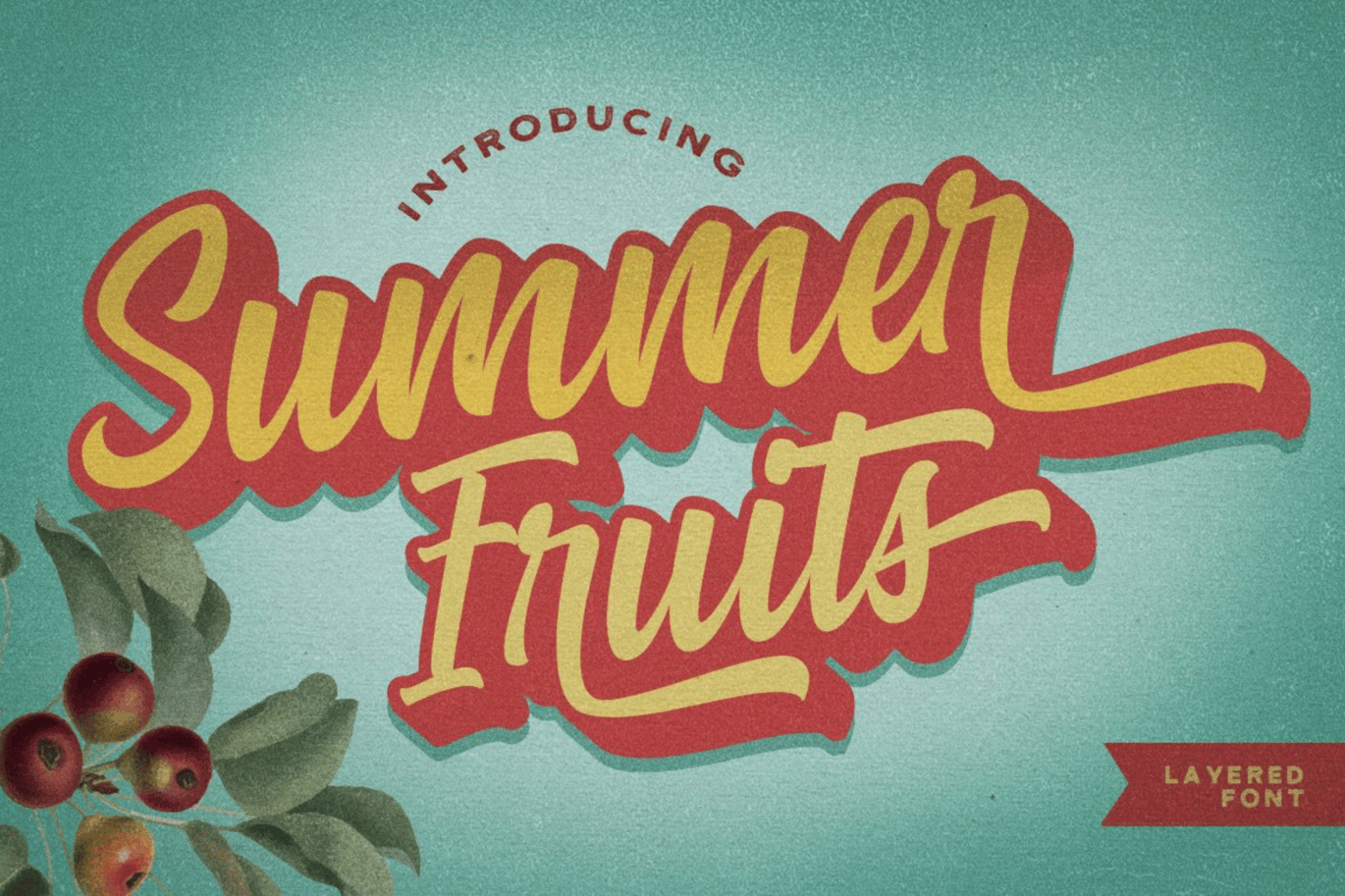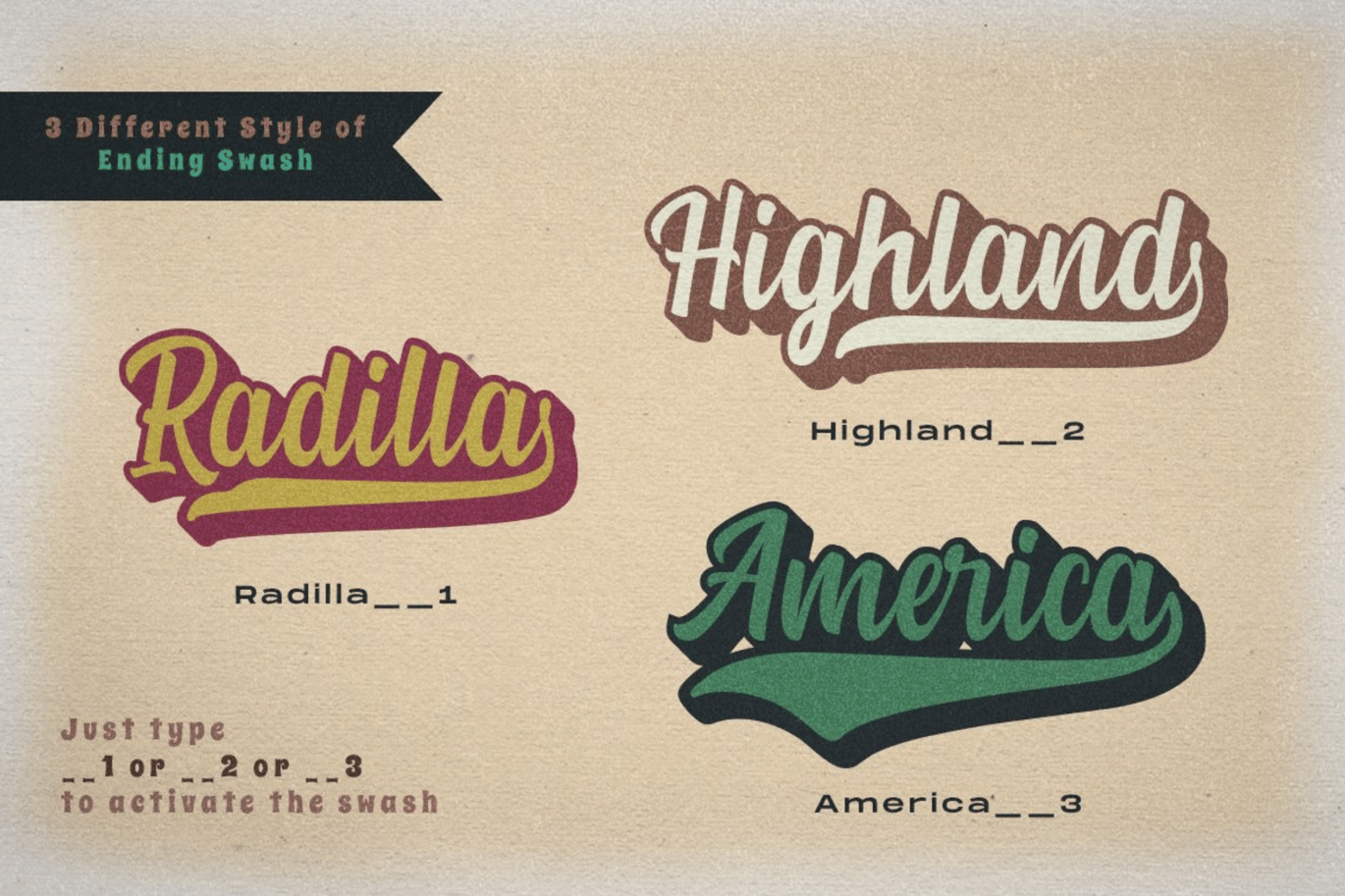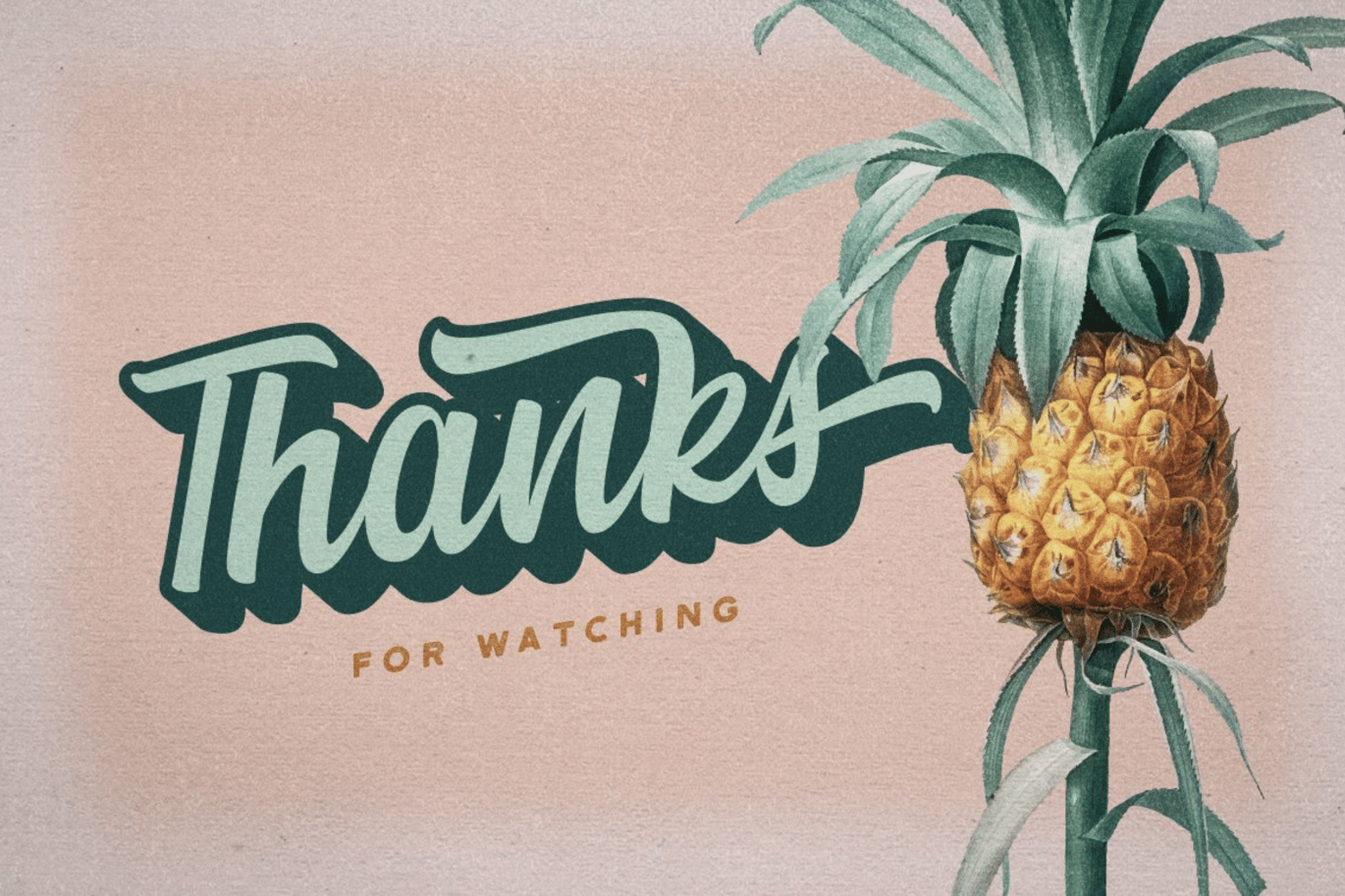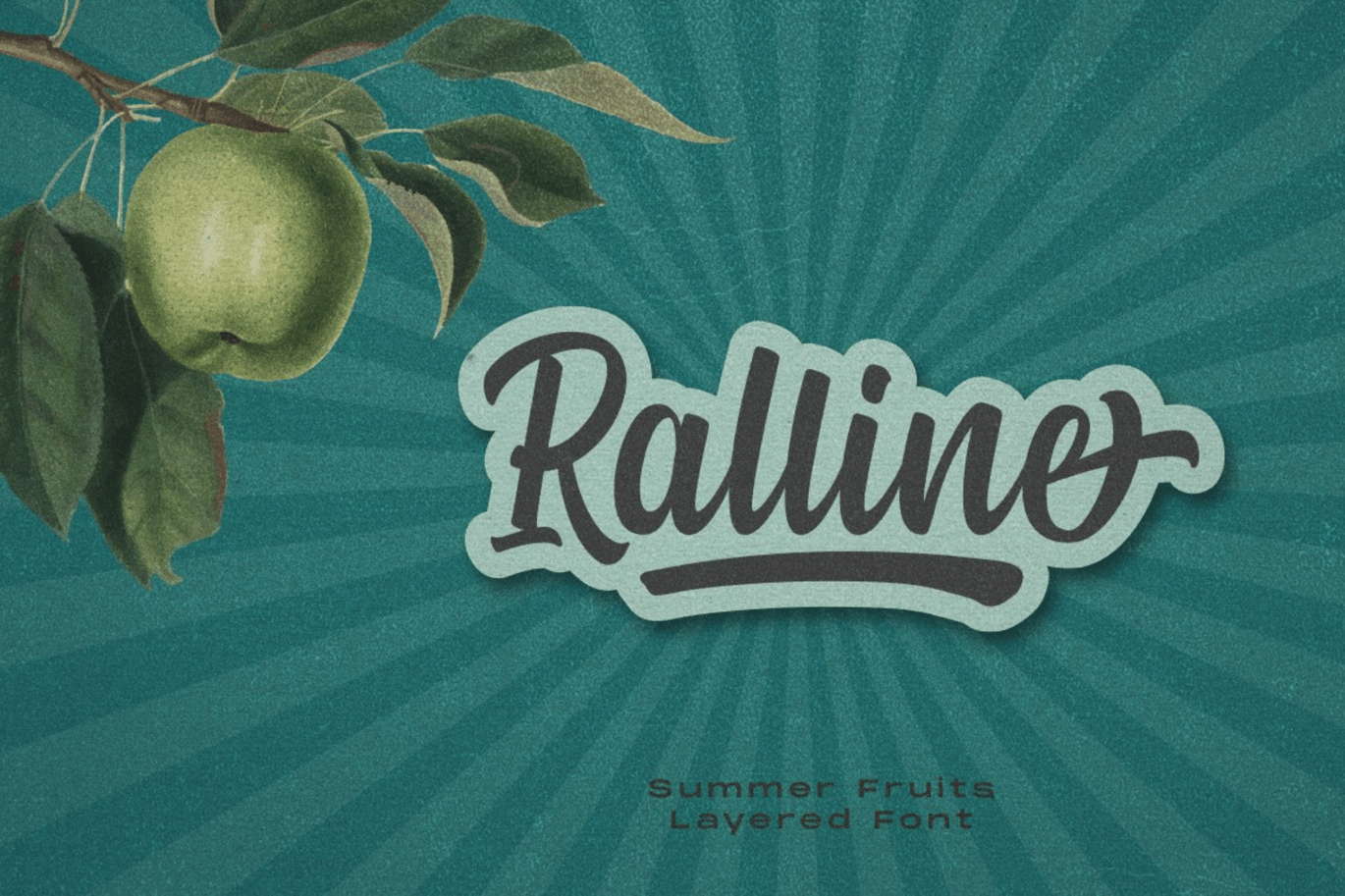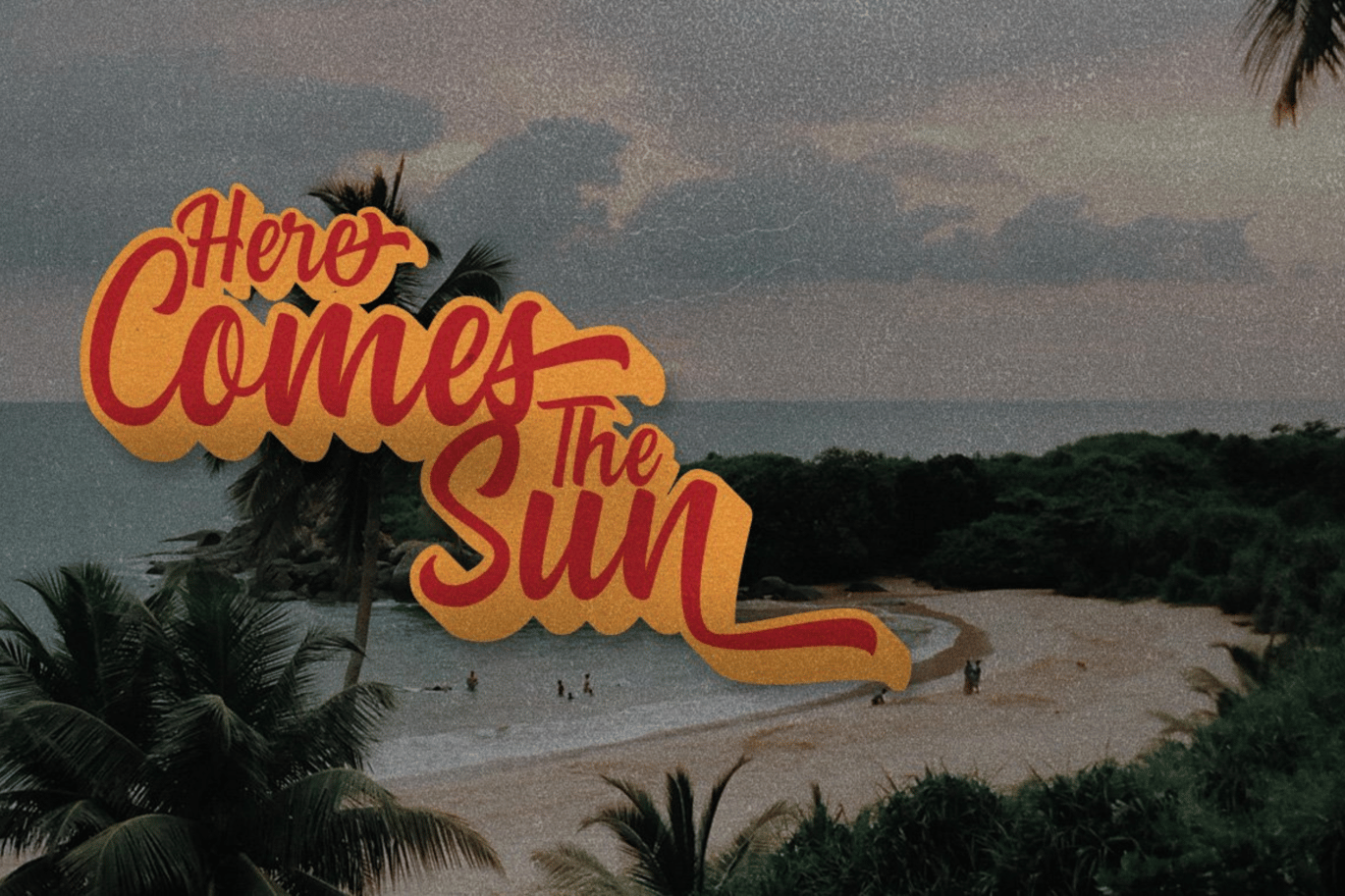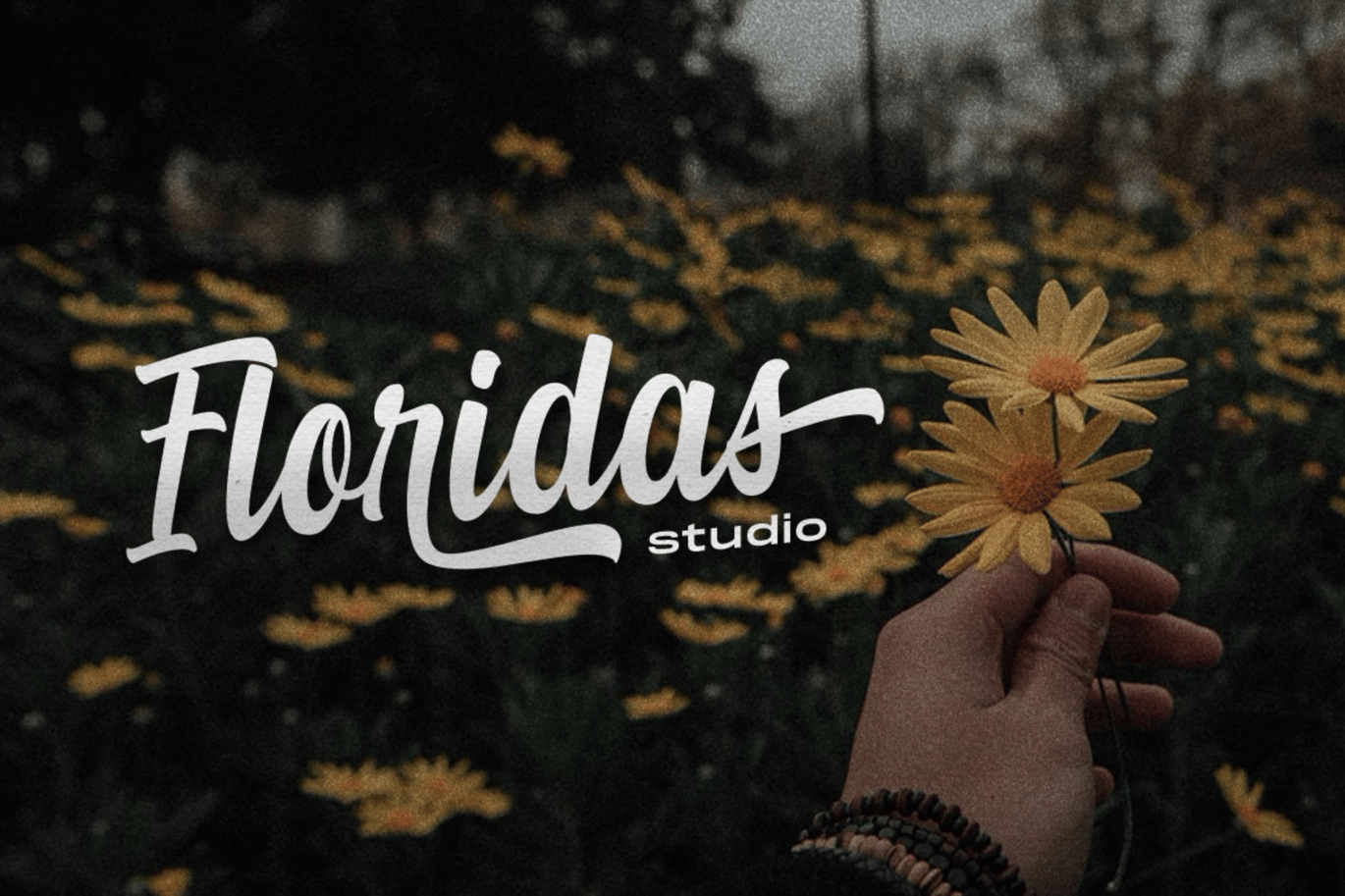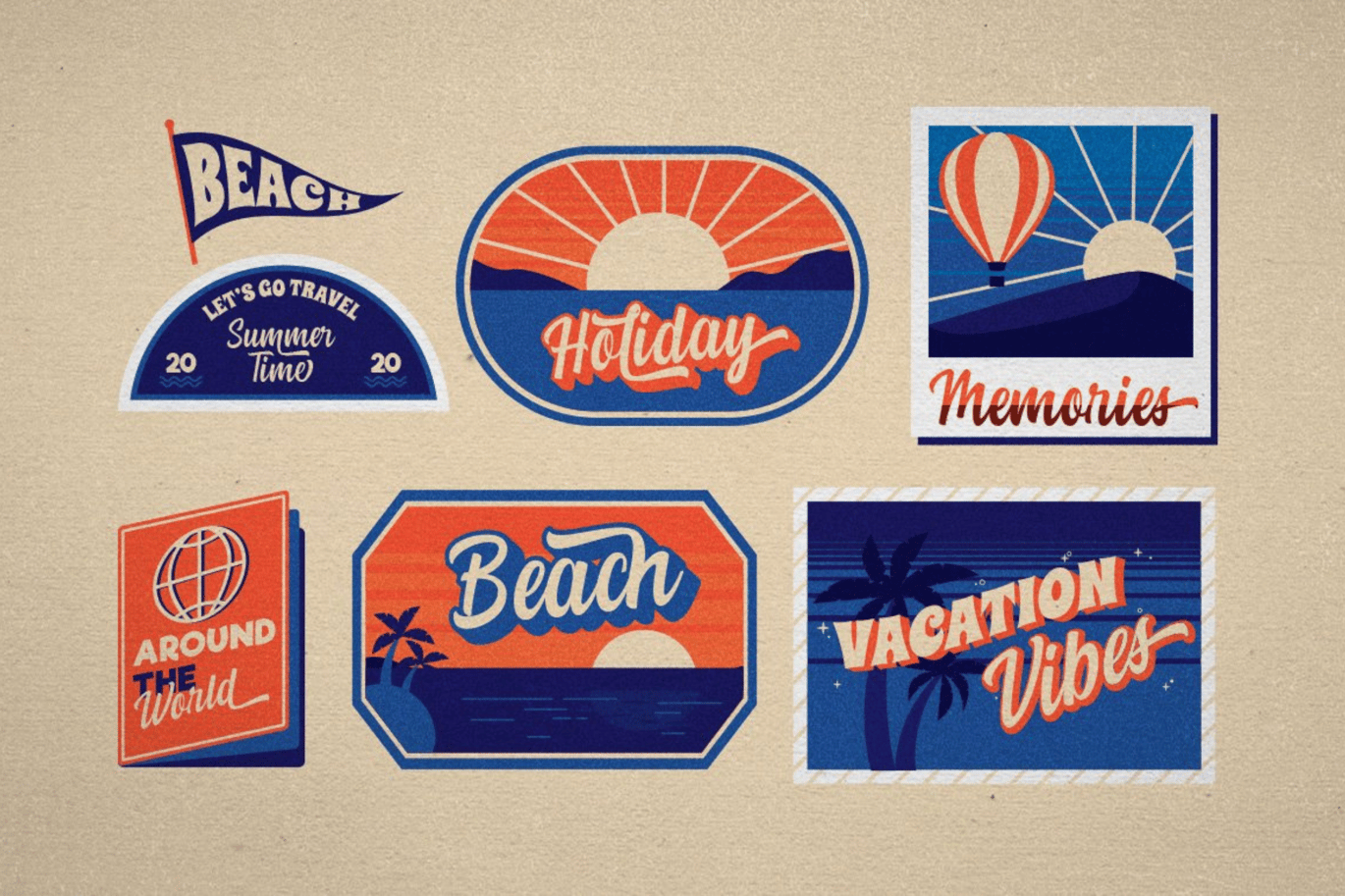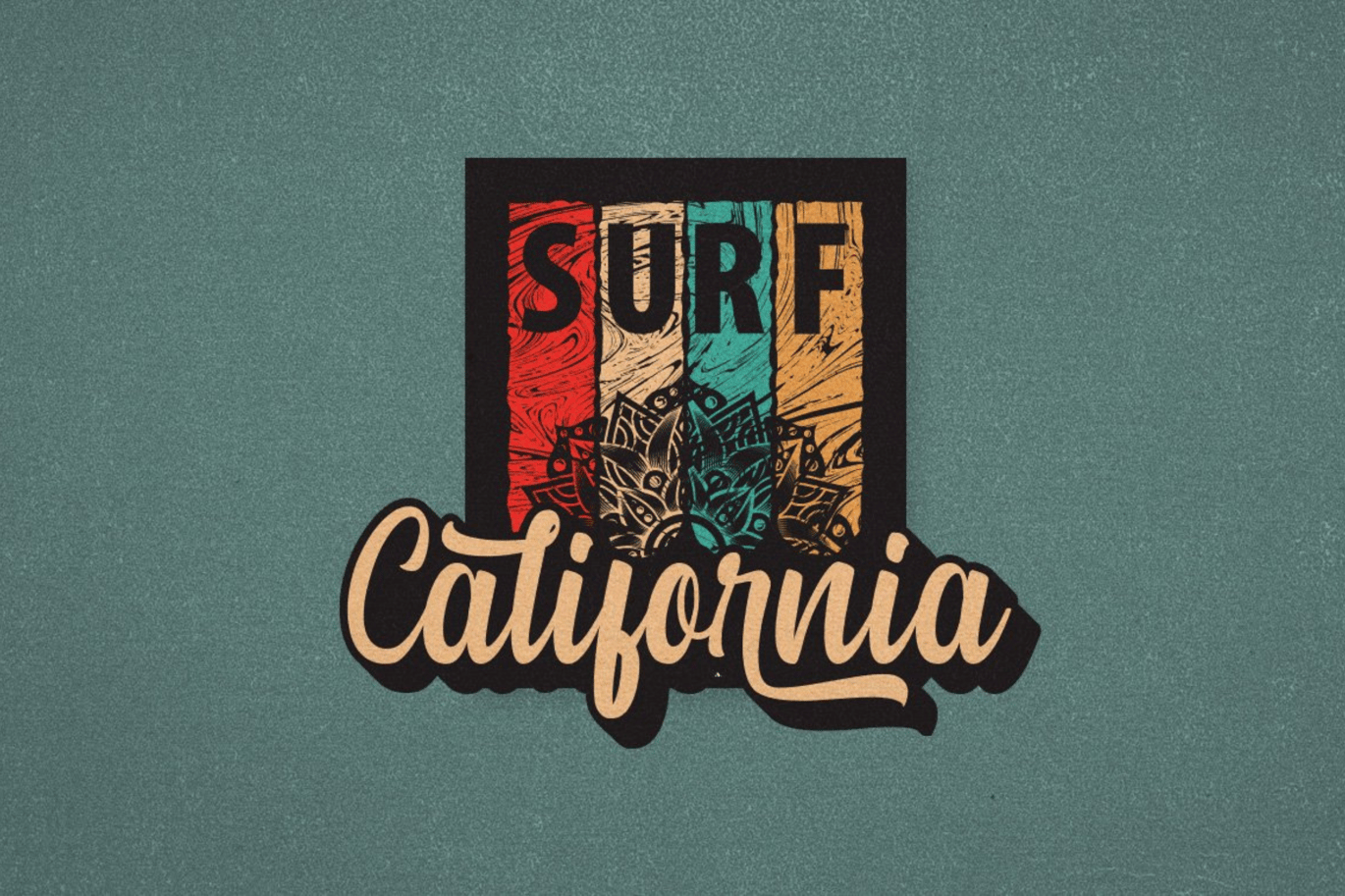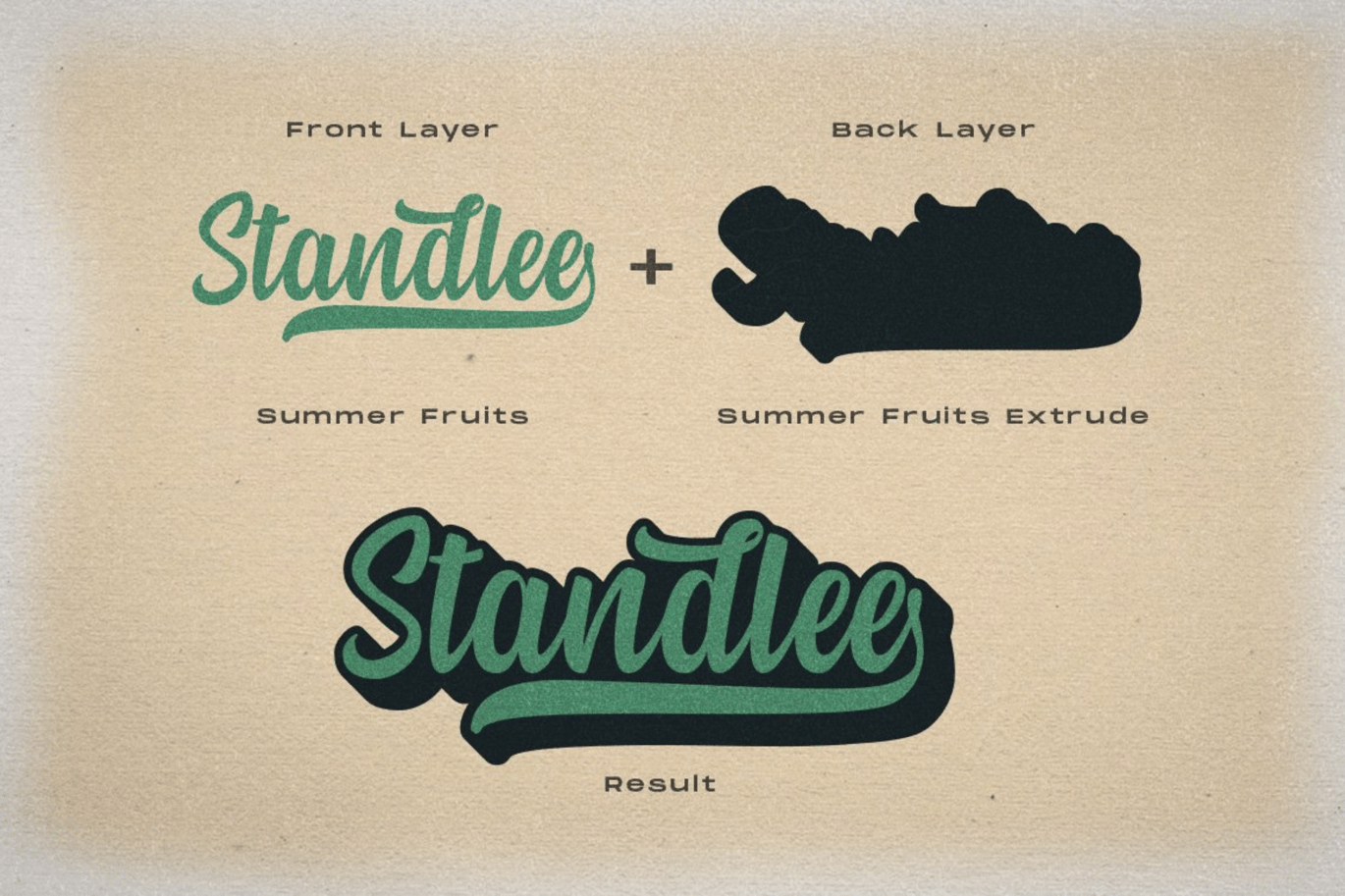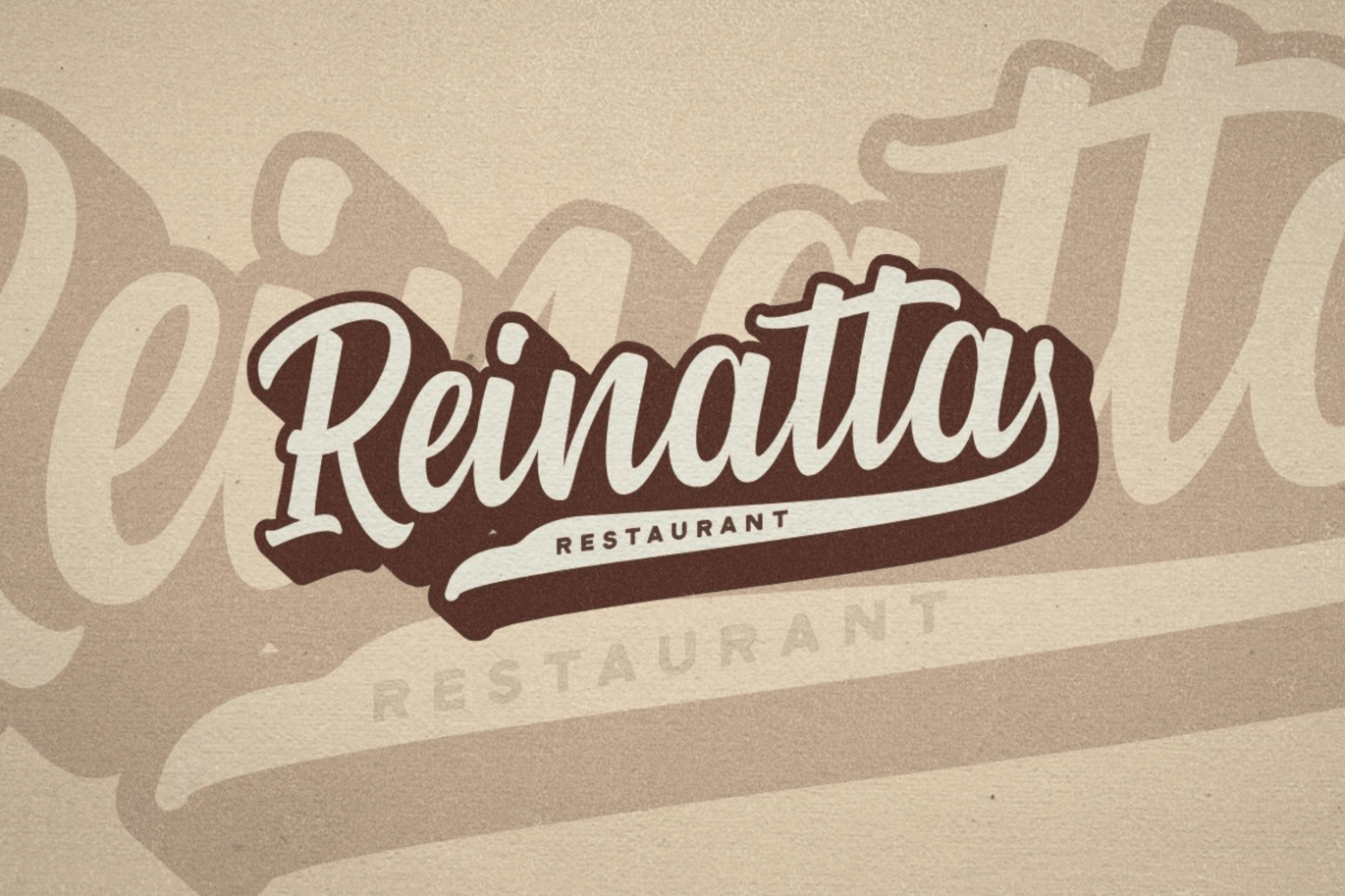
Summer Fruits – Layered Font
Summer Fruit is a bold script who comes with extrude effect. Inspired by retro typography designs style in 70’s.
You won’t need extra effort for create an extrude effect for this font. It is because we include the extrude with this font. This mean you can saves your time by only adding the extrude font on the back layer.
The Features includes:
- Stylistic Alternates,
- Swashes,
- Ligatures,
- Contextual and Stylistic Set.